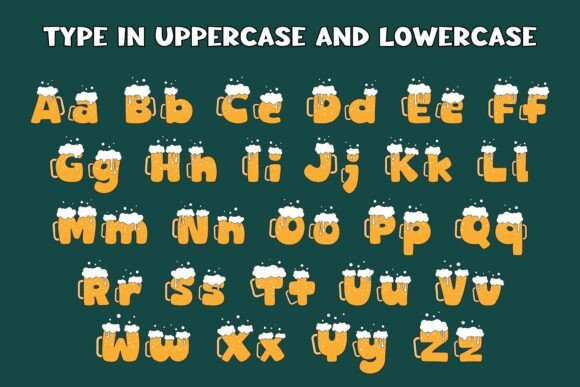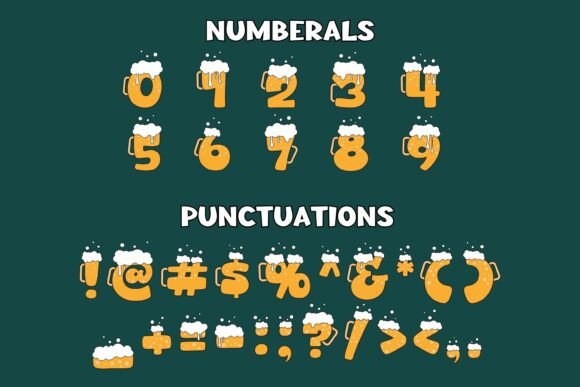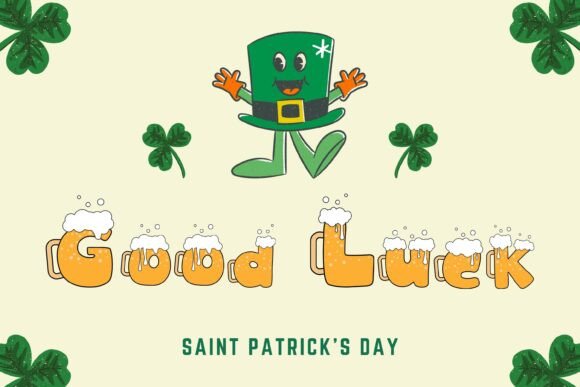
Introducing Cheers Font: The Ultimate St. Patrick’s Day Design Companion
Are you ready to add a touch of magic to your St. Patrick’s Day designs? Look no further than the Cheers Font, a vibrant and playful color font that’s sure to bring a smile to everyone’s face. This enchanting font is perfect for designers, crafters, and anyone looking to create mesmerizing masterpieces for the festive season.
What Makes Cheers Font So Special?
The Cheers Font is more than just a font – it’s an experience. Its captivating character effortlessly melds with various design projects, including t-shirt designs, digital imprints, craft creations, decorative cards, and extensive projects. Whether you’re a professional designer or a DIY enthusiast, this font is sure to inspire your creativity and take your designs to the next level.
Variety and Flexibility
Perfect for St. Patrick’s Day Designs
The Cheers Font is specifically designed with St. Patrick’s Day in mind. Its playful and vibrant characters are perfect for creating festive designs that will capture the spirit of the holiday. Whether you’re designing t-shirts, posters, or digital graphics, this font is sure to add a touch of magic to your creations.
Use Cases for Cheers Font
The Cheers Font is incredibly versatile and can be used for a wide range of projects, including:
- T-shirt designs: Create eye-catching and festive t-shirts for St. Patrick’s Day with the Cheers Font.
- Digital imprints: Add a touch of magic to your digital designs, such as social media graphics, blog posts, and email newsletters.
- Decorative cards: Design beautiful and festive cards for St. Patrick’s Day using the Cheers Font.
- Extensive projects: Use the Cheers Font for larger design projects, such as posters, flyers, and brochures.
Why Choose Cheers Font?
So why choose the Cheers Font for your St. Patrick’s Day designs? Here are just a few reasons:
- Unique and playful characters: The Cheers Font features unique and playful characters that will add a touch of magic to your designs.
In conclusion, the Cheers Font is the perfect companion for St. Patrick’s Day designs. Its playful and vibrant characters, combined with its versatility and flexibility, make it an essential tool for designers and crafters. Whether you’re creating t-shirt designs, digital imprints, craft creations, or extensive projects, the Cheers Font is sure to bring a touch of magic to your designs. So why wait? Download the Cheers Font today and start creating mesmerizing masterpieces for St. Patrick’s Day!